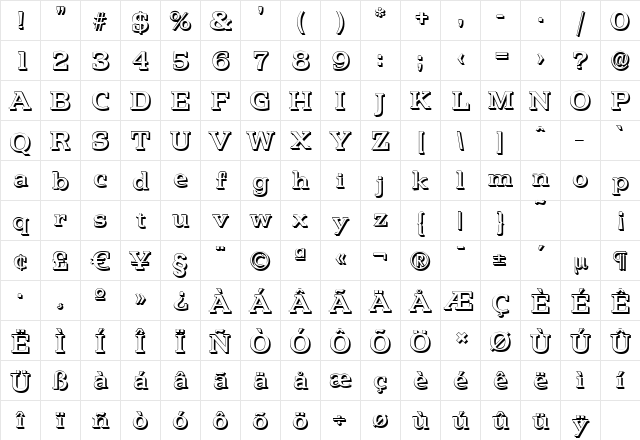
PenthouseShadow-Medium Regular
Design Context for PenthouseShadow-Medium
PenthouseShadow-Medium is built around its visual character rather than neutral utility - its distinctive forms are designed to make an impression at display sizes.
Font Pairing: Pair with a clean neutral sans-serif for body copy to let PenthouseShadow-Medium's character lead without overwhelming the composition.
Pro Tip: Use PenthouseShadow-Medium exclusively at display sizes - it was designed to be seen, not read at length. Let a neutral companion handle body copy.